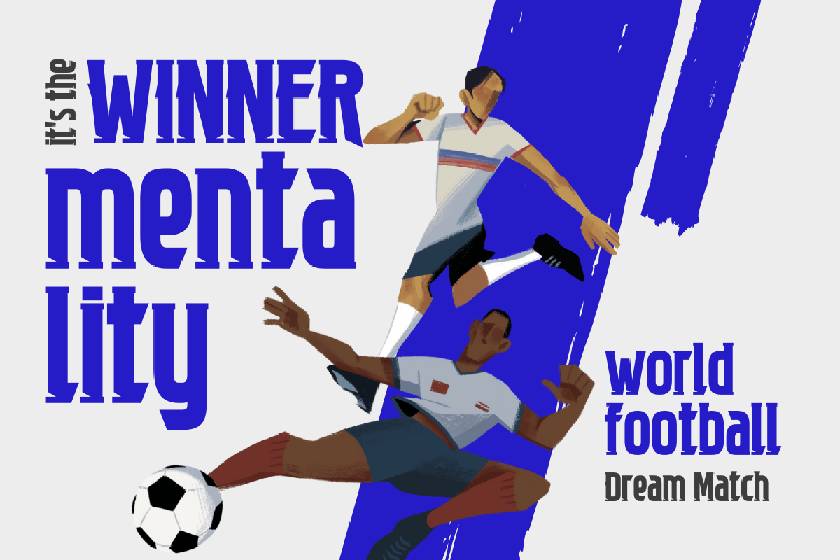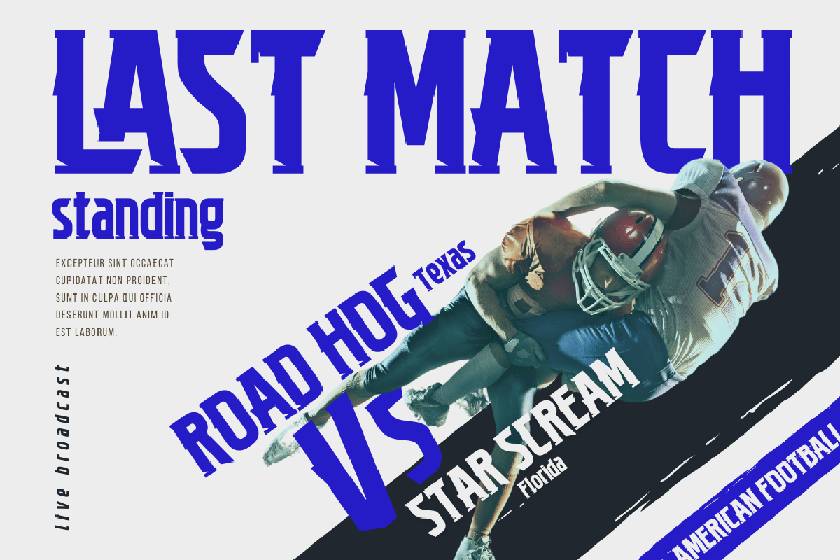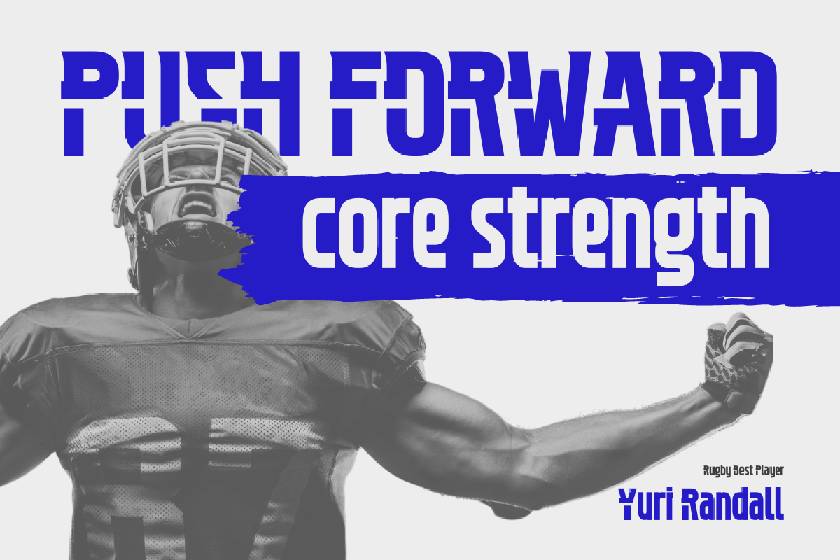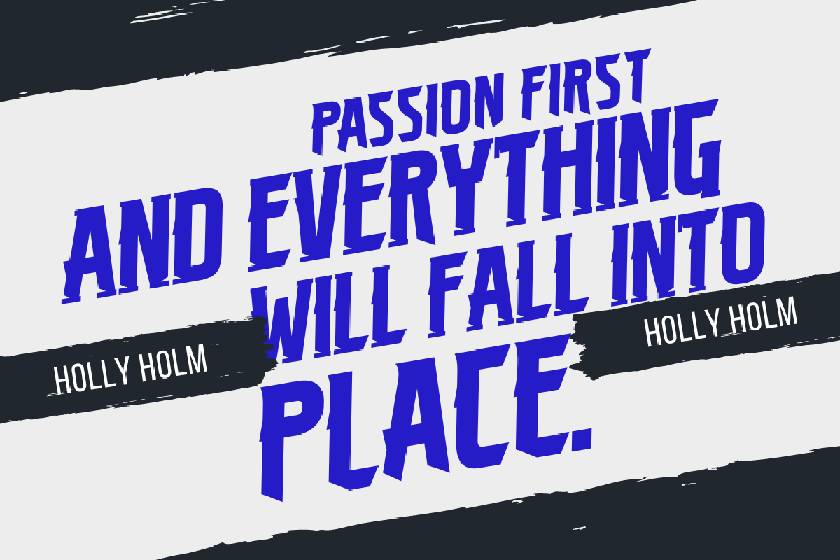
Binnek is a bold, condensed sans serif font with a strong, modern impact. Its tall, narrow letterforms and high contrast between thick and thin strokes give it a striking, industrial feel, ideal for attention-grabbing headlines and branding. This font works well in designs that require a powerful, contemporary statement without sacrificing readability.
Binnek Font
About Binnek Font